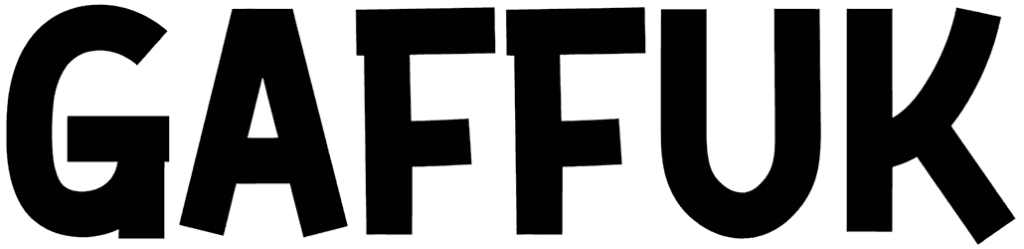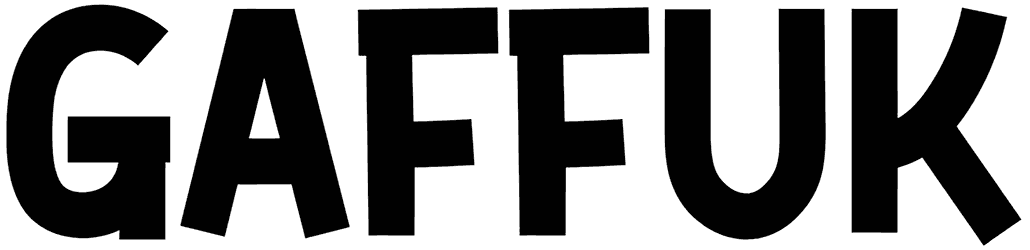
Gaffuk Font
If you are looking for a regular cartoon font with a geometric look, we recommend Gaffuk. This fancy font has clean letters with neat edges that are easy to read despite the handwritten appearance.
So, by adding this font to your writing, you can create a very beautiful composition while keeping it simple. This cartoon font is compatible with any project, and even though the set of numbers is incomplete, it plays a good role in posters, advertisements, and more.